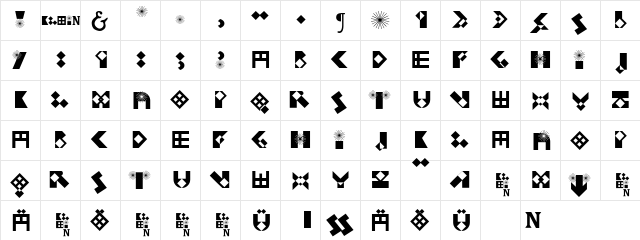
KleinsFirstBricks Bold Font Preview
KleinsFirstBricks Bold
Design Context for KleinsFirstBricks Typeface
KleinsFirstBricks is a composed and adaptable typeface that performs quietly and consistently across a wide range of design contexts. The heavy weight commands attention and anchors typographic hierarchies.